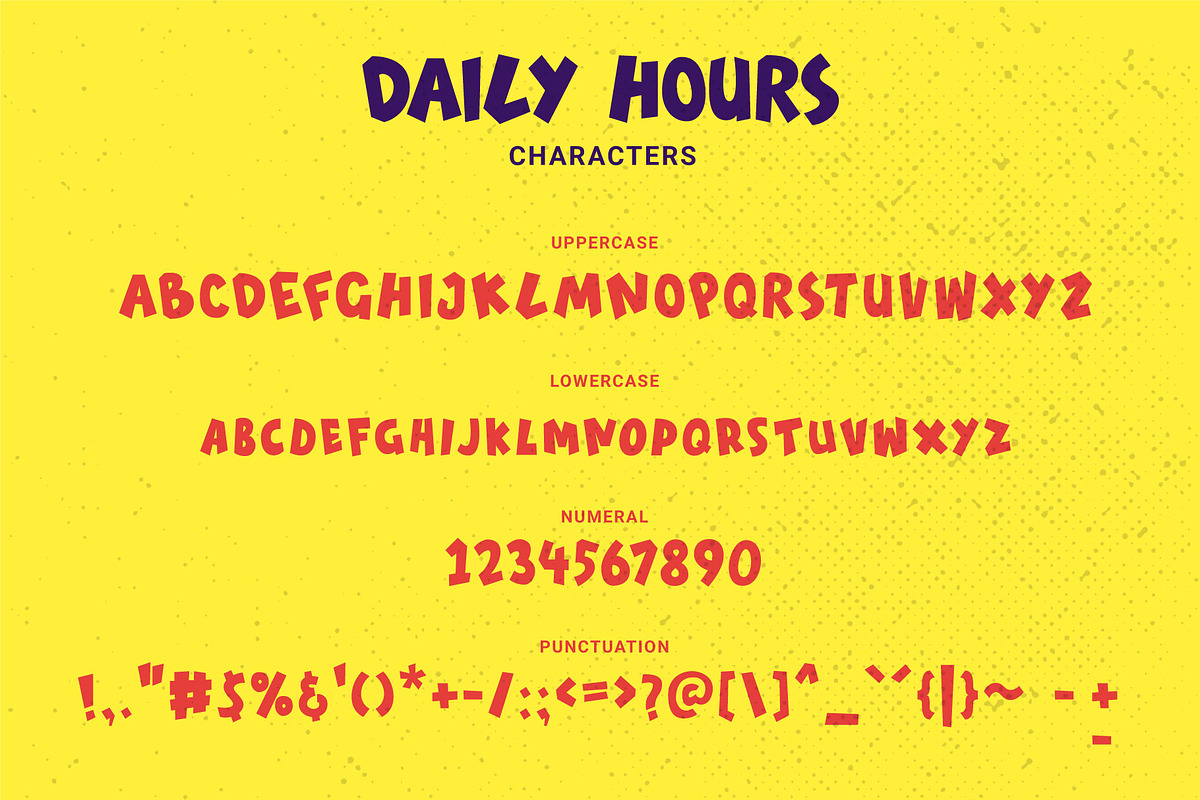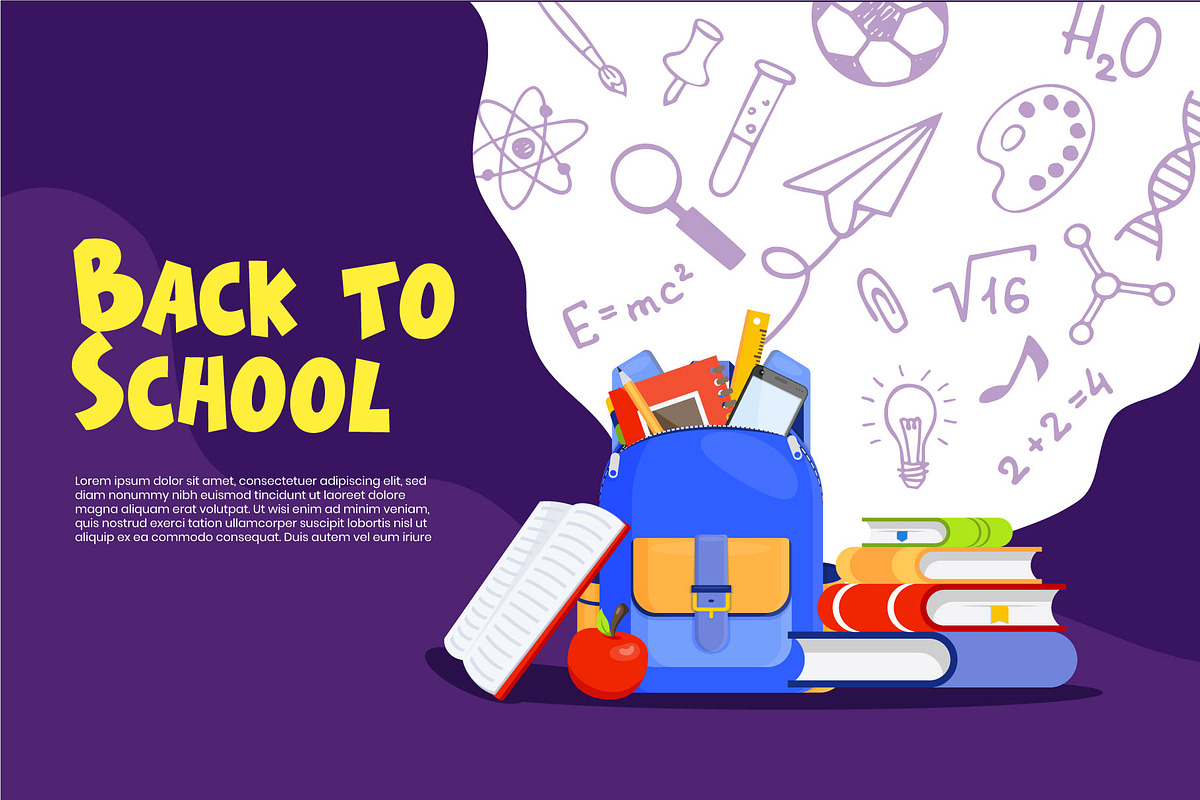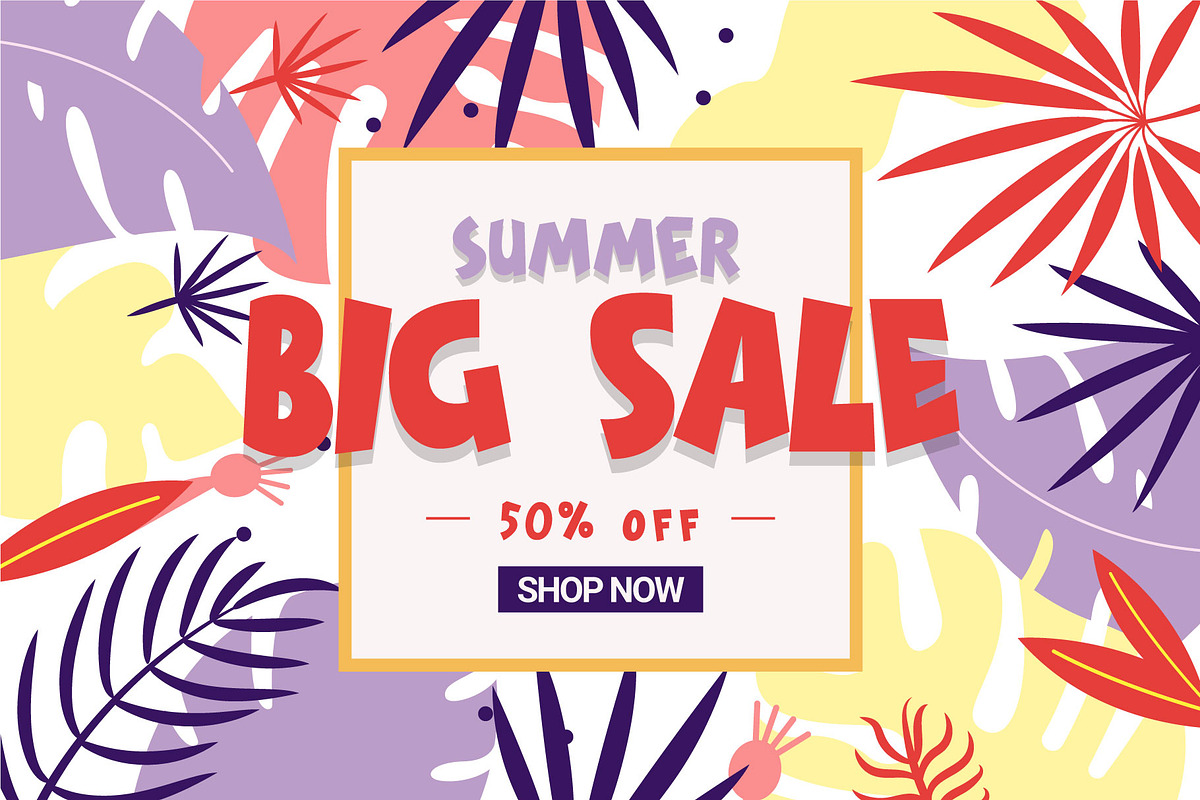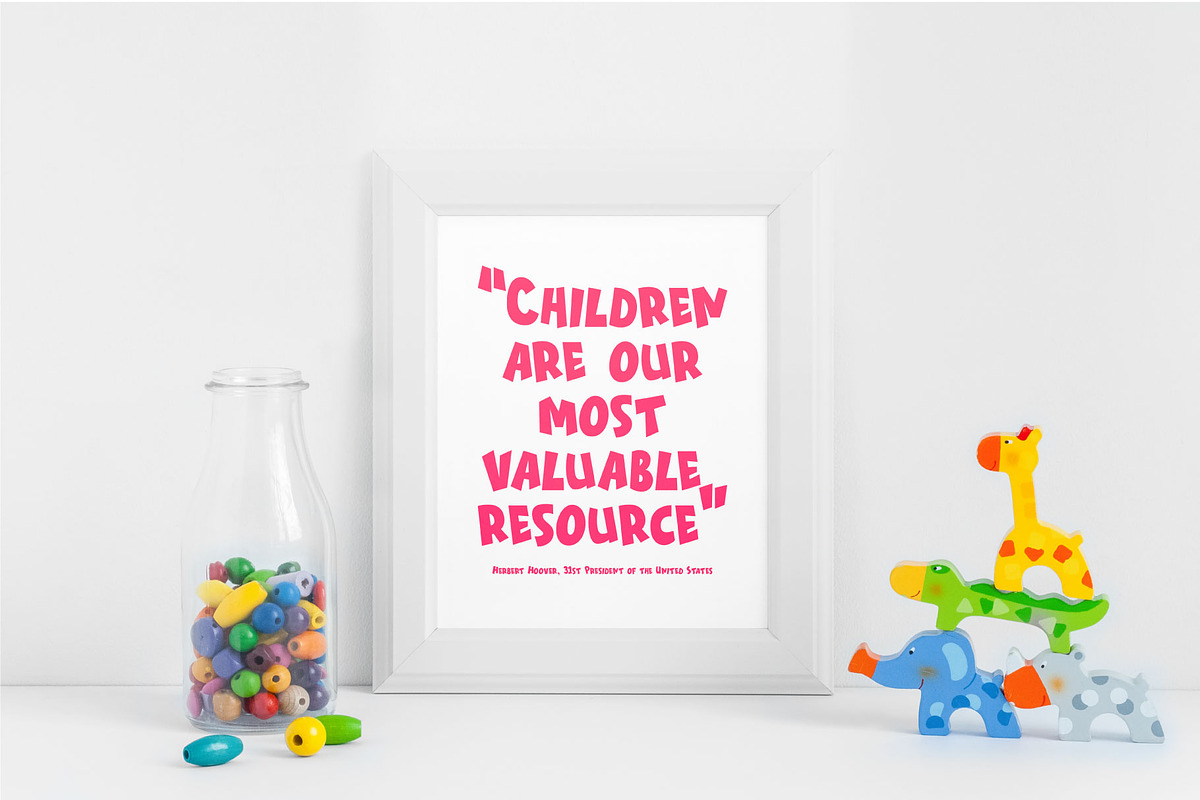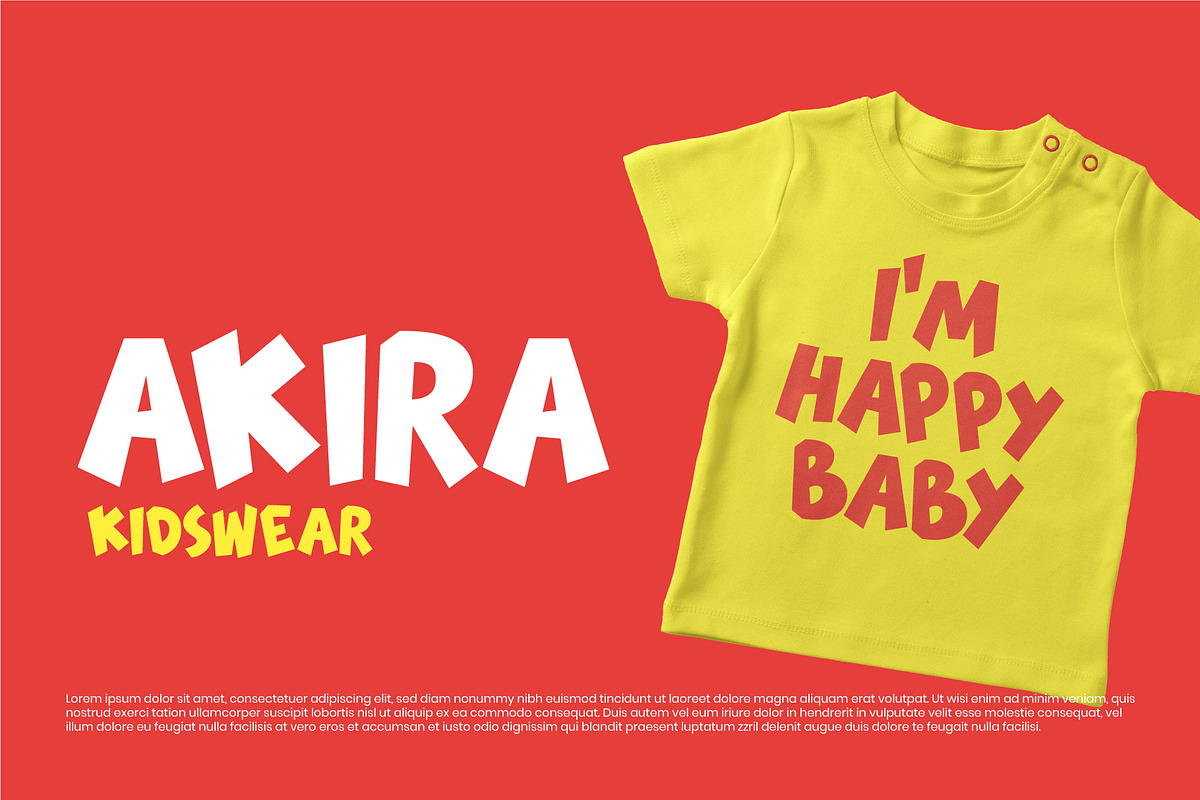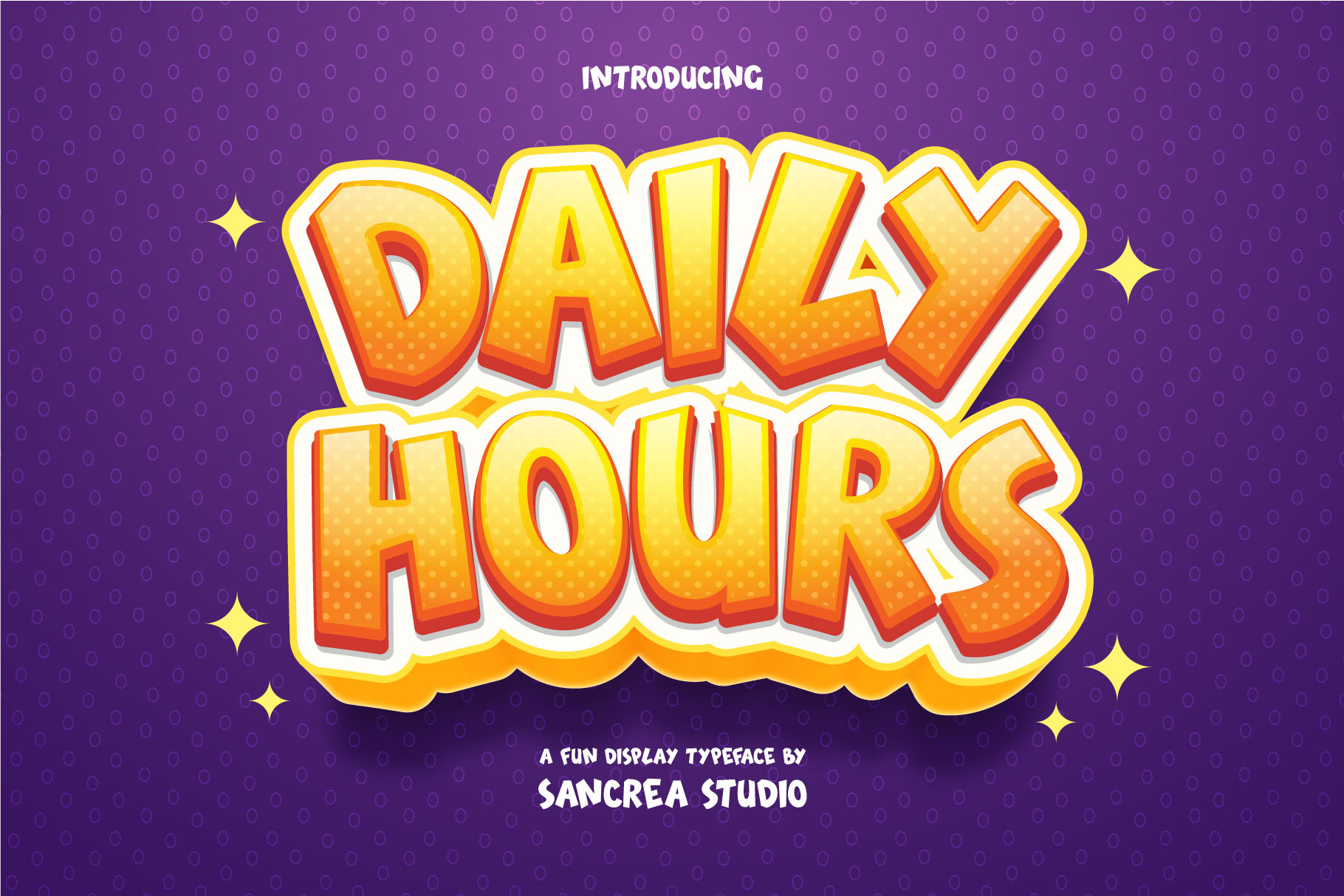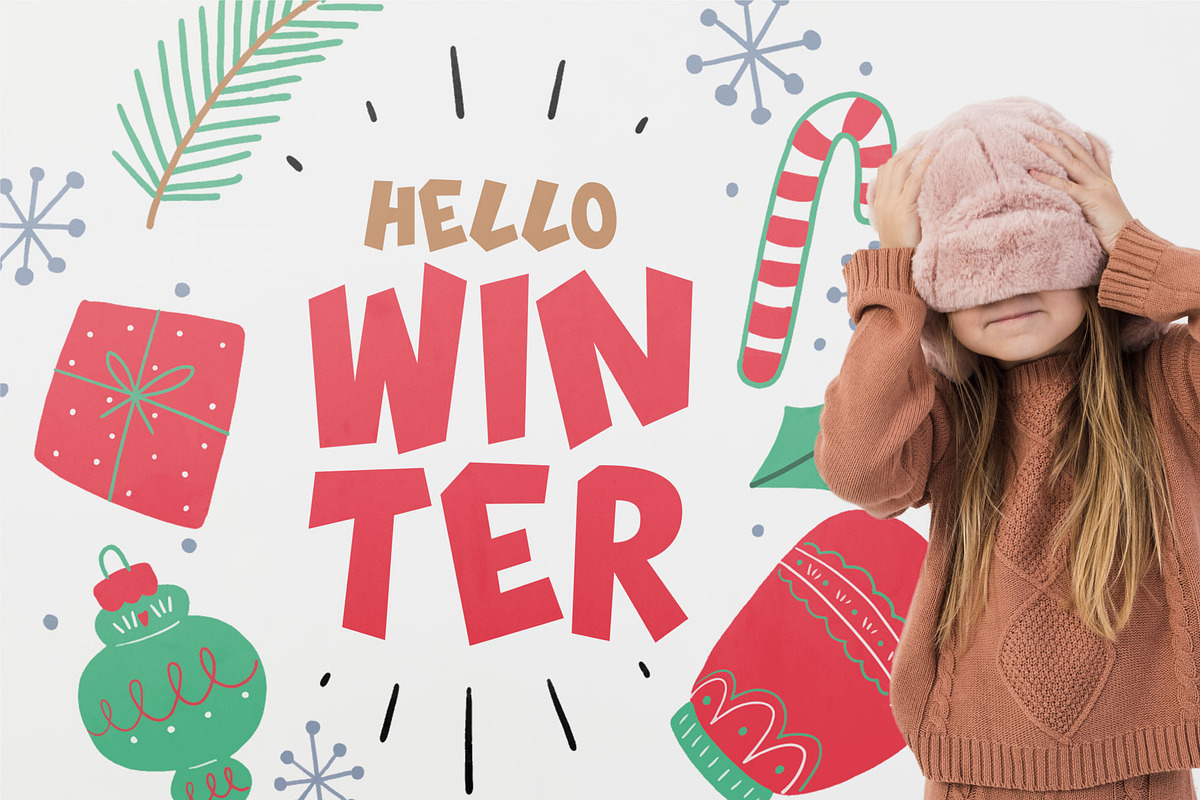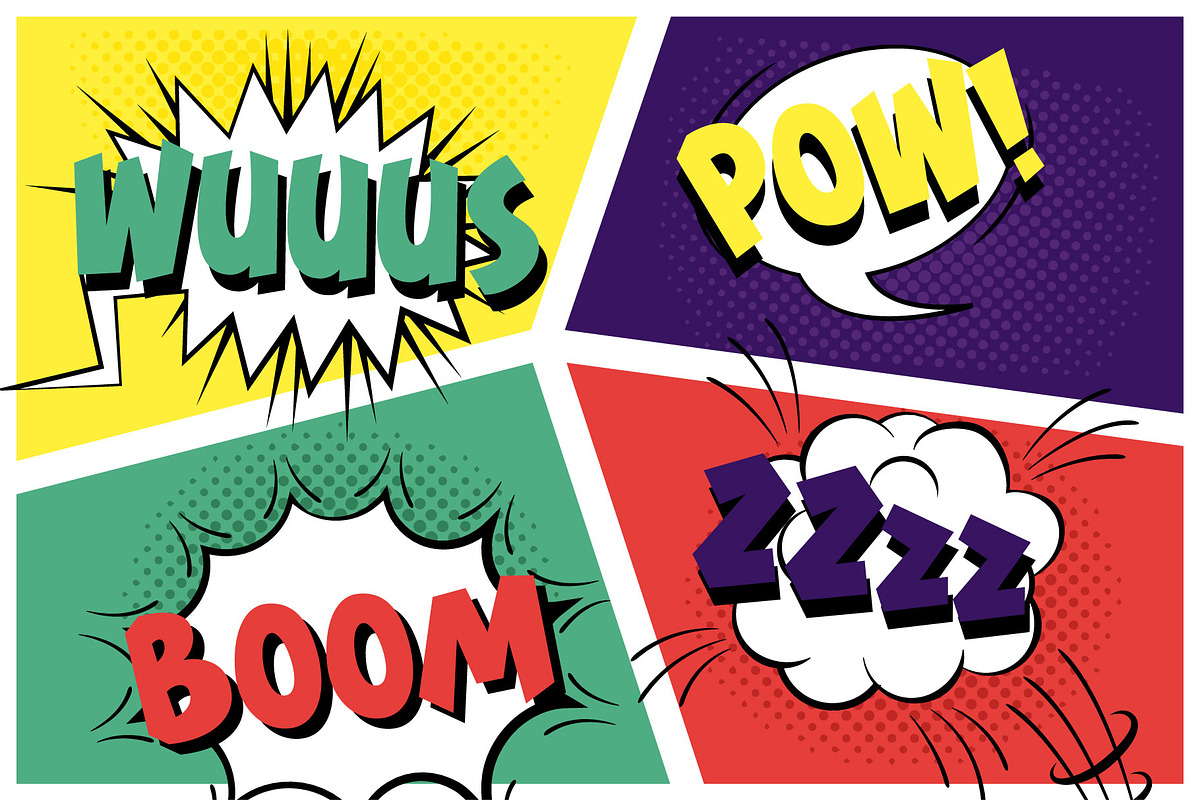
Daily Hours - A Fun Display Font
Daily Hours - a super fun and playful hand-lettered bold typeface. Use for logos, quotes, invitations, blog posts, business cards, presentations and more! This font is all caps and includes numbers and punctuation.
This font does include accent characters.